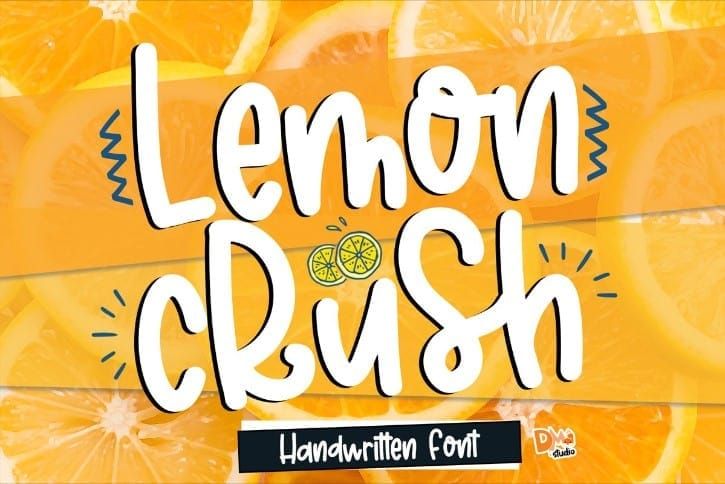
Lemon Crush – Handwritten Font
The Lemon Crush Handwritten Font is a fresh and vibrant typeface that captures the zest and liveliness of a freshly squeezed lemon. With its playful letterforms and organic strokes, this font adds a touch of energy and whimsy to your designs, making it perfect for packaging, logos, quotes, and other creative projects.
1. Playful and Energetic Style: The Lemon Crush Font exudes a lively and vibrant aesthetic. Its dynamic letterforms and playful design capture the zest and liveliness of a lemon, creating a refreshing and engaging look for your designs.
2. Handwritten Appeal: The font emulates the authenticity and free-flowing nature of handwritten text, adding a personal touch to your designs. It captures the organic and whimsical qualities of hand-drawn lettering, creating a unique and lively feel.
3. Versatile Application: This font is versatile and well-suited for various design projects that aim to evoke a sense of freshness and playfulness. Use it in packaging, logos, quotes, social media graphics, and more to add a touch of energy and whimsy to your designs.
4. Uppercase and Lowercase Letters: The font includes both uppercase and lowercase letters, providing flexibility and creative freedom in your designs. Mix and match the cases to create visually appealing and balanced typography.
5. Punctuation and Symbols: In addition to the alphabet, the Lemon Crush Font includes a comprehensive set of punctuation marks, numerals, and common symbols. This ensures consistency and ease of use when incorporating the font into your design projects.
Infuse your designs with the freshness and liveliness of the Lemon Crush Handwritten Font. Let its playful letterforms and organic strokes bring a touch of energy and whimsy to your packaging, logos, and quotes. Embrace the vibrant nature of this font and create designs that capture attention and evoke a sense of joy and playfulness.